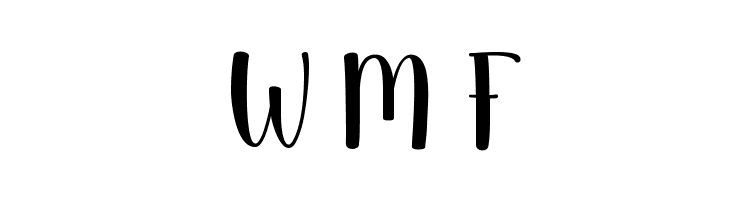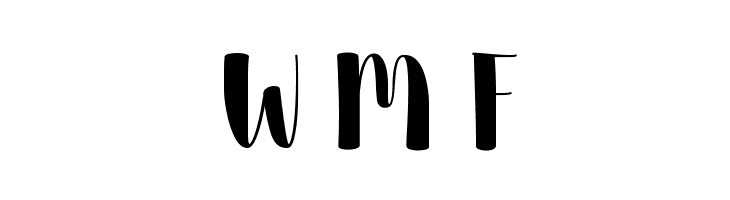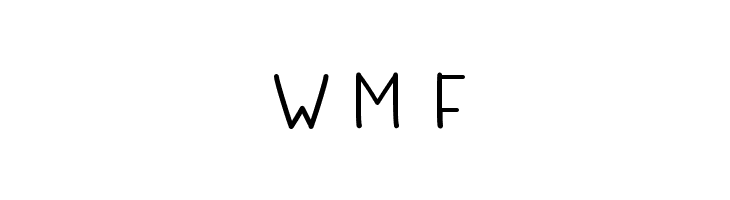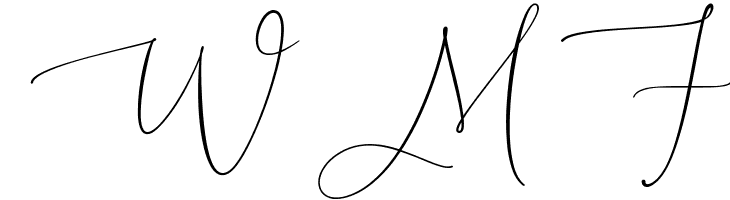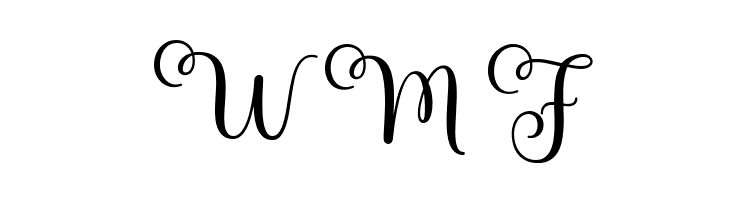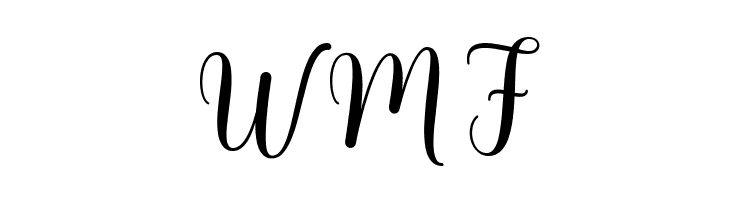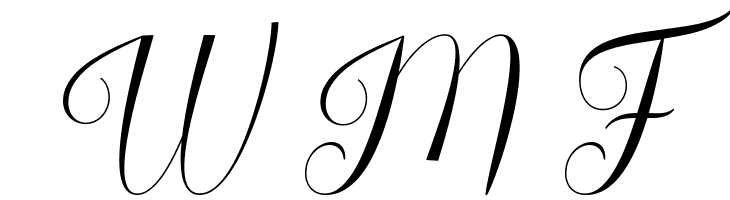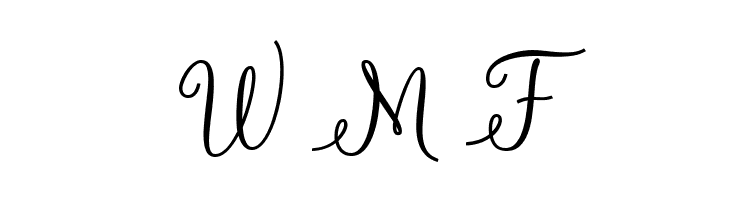
A playful, handwritten font with bold, dynamic strokes and whimsical flourishes.
A playful, handwritten font with flowing, interconnected letters and a whimsical style.
A playful, handwritten font with smooth curves and a casual style.
A bold, playful script font with high contrast and whimsical flair.
A playful and elegant script font with a handwritten style.
A playful, handwritten font with a whimsical and friendly style.
A playful, whimsical font combining script and sans-serif elements.
A playful, whimsical font with tall, narrow letters and a modern artistic flair.
A playful, handwritten font with tall, narrow characters and dynamic strokes.
A tall, narrow font with a sleek, modern design and thin, evenly spaced characters.
A playful, bold font with rounded edges and a bubbly appearance.
A playful and elegant script font with flowing, cursive letterforms.
A playful, spooky font with jagged, uneven characters perfect for Halloween themes.
A whimsical, festive script font with decorative elements like stars and hearts.
A playful, bold font with heart-shaped cutouts, perfect for decorative use.
A playful, energetic font with script and sans-serif elements, ideal for festive designs.
A playful and elegant script font with a modern, handwritten style.
A playful, elegant cursive script with a whimsical flair.
A playful, spooky font with jagged edges and a hand-drawn look.
A playful and bold font with whimsical curves and dynamic strokes.
A playful, handwritten font with tall, narrow letters and a casual style.
A playful and whimsical font with tall, narrow letterforms and dynamic strokes.
An elegant, cursive font with flowing lines and intricate flourishes.
An elegant and decorative script font with intricate swirls and loops.
An elegant, flowing script font with a modern touch.
An elegant script font with intricate swirls and flowing lines.
A bold, flowing script font with smooth, continuous lines and a modern elegance.
A bold, dynamic font with a slanted, energetic style.
A dynamic and flowing script font with elegant, slightly slanted letterforms.
A dynamic and elegant script font with flowing letterforms.
A playful, handwritten font with bold, rounded characters.